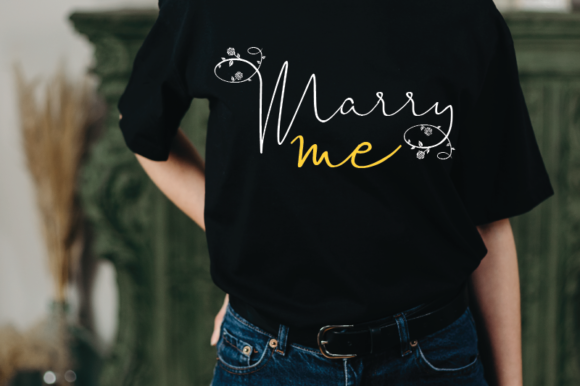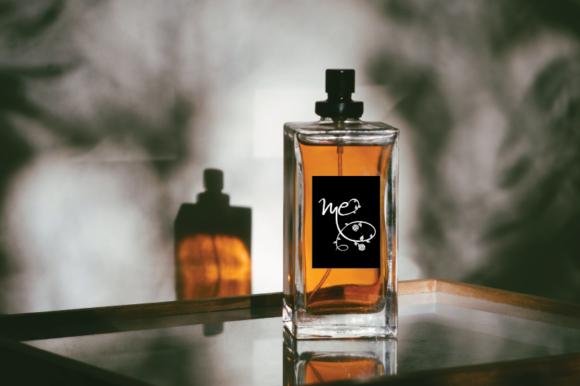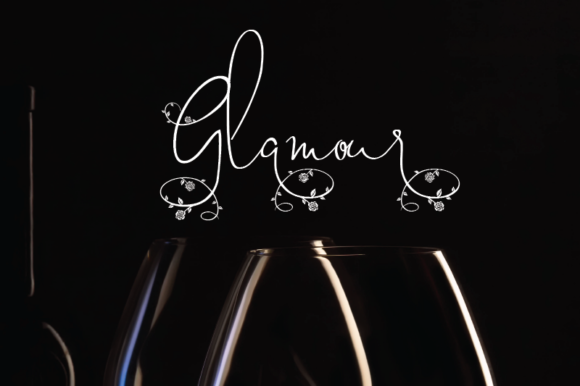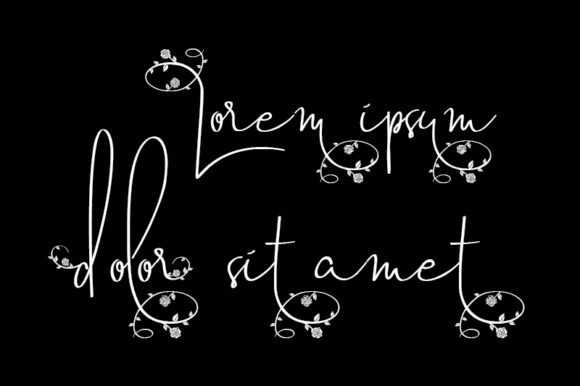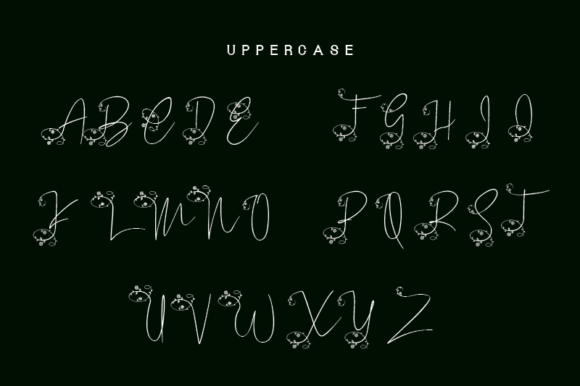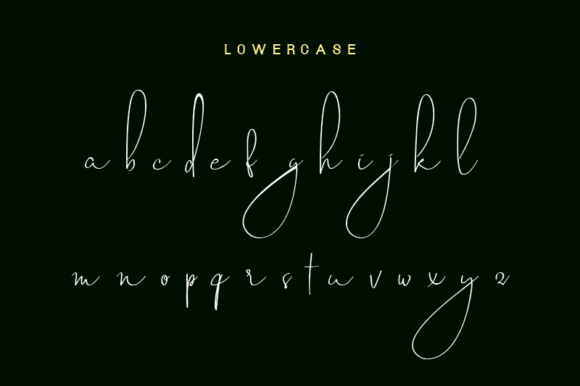
Discover the Elegance of Barbara Font: Elevate Your Designs with a Delicate Touch
In the world of typography, few fonts manage to capture the essence of elegance and sophistication as beautifully as the Barbara font. This delicate, elegant, and flowing handwritten font has been making waves among designers and crafters alike, and for good reason. With its beautifully balanced characters, Barbara font is an incredibly versatile addition to any design project, capable of bringing a touch of refinement and poise to a wide range of creative endeavors.
The Characteristics of Barbara Font
So, what makes Barbara font stand out from the crowd? For starters, its delicate and flowing nature gives it a unique, handcrafted feel that is hard to replicate with more traditional fonts. Each character is carefully designed to flow smoothly into the next, creating a sense of continuity and harmony that is a joy to behold. This makes Barbara font particularly well-suited for projects where elegance and sophistication are key, such as in wedding invitations, luxury branding, and high-end product packaging.
Another notable feature of Barbara font is its beautifully balanced characters. The font’s designer has taken great care to ensure that each letter, number, and symbol is meticulously crafted to be visually appealing on its own and in combination with other characters. This attention to detail results in a font that is not only aesthetically pleasing but also highly legible, making it an excellent choice for both headings and body text.
Versatility: The Key to Barbara Font’s Appeal
One of the most significant advantages of Barbara font is its versatility. Whether you’re working on a modern digital project or a more traditional print design, this font can adapt to fit your needs. Its elegant and flowing nature makes it an excellent fit for:
- Wedding and event invitations: Add a touch of romance and sophistication to your wedding invitations, save-the-dates, and other event materials.
- Luxury branding and packaging: Elevate your luxury brand with a font that exudes elegance and refinement.
- Fashion and beauty designs: Use Barbara font to add a touch of glamour and style to your fashion and beauty projects.
- Digital and print advertising: Make your ads stand out with a font that is both eye-catching and sophisticated.
Why Designers and Crafters Love Barbara Font
Designers and crafters are always on the lookout for fonts that can help their projects stand out, and Barbara font delivers. Here are a few reasons why creatives are falling in love with this beautiful font:
- Ease of use: Despite its elegant appearance, Barbara font is incredibly easy to use, even for those who are new to design.
- Customization options: With its wide range of characters and symbols, Barbara font offers plenty of opportunities for customization.
- Timeless appeal: Unlike trendier fonts that may quickly go out of style, Barbara font has a timeless quality that ensures it will remain relevant for years to come.
In conclusion, Barbara font is a true gem in the world of typography. Its delicate, elegant, and flowing nature makes it an excellent addition to any design project, while its versatility and timeless appeal ensure it will remain a popular choice among designers and crafters for years to come. Whether you’re looking to add a touch of sophistication to your luxury branding or simply want to create a beautiful wedding invitation, Barbara font is sure to exceed your expectations.